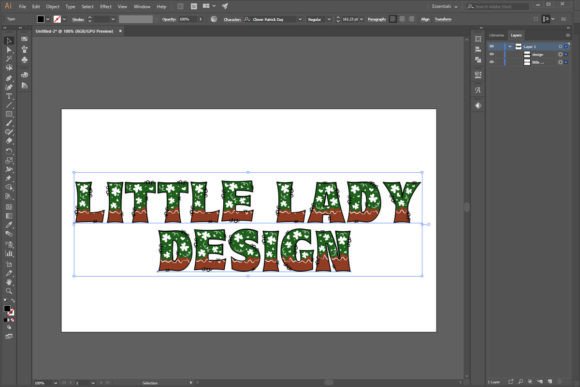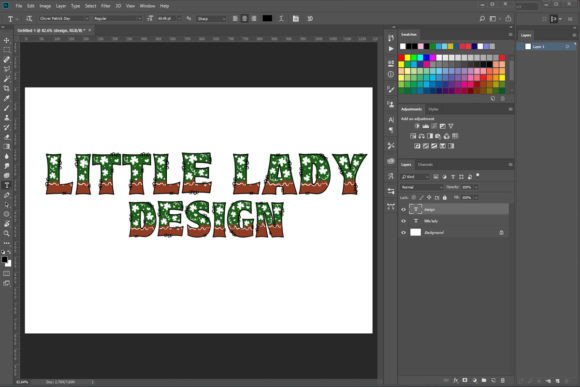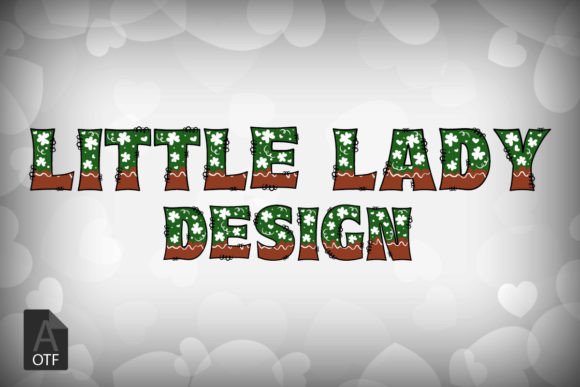
Clover Patrick Day Font: Elevate Your Designs with a Vibrant Retro Twist
In the world of digital design, fonts play a crucial role in conveying the tone and aesthetic of a project. For those looking to add a pop of color and a dash of nostalgia to their creations, the Clover Patrick Day Font is an excellent choice. This vibrant display font seamlessly blends a retro aesthetic with bold, bright colors, resulting in a lively and eye-catching design that’s perfect for a variety of projects.
What is Clover Patrick Day Font?
Clover Patrick Day Font is a unique and energetic display font that combines the charm of retro typography with the vibrancy of modern color schemes. Its bold and bright aesthetic makes it an ideal choice for designers and crafters looking to create eye-catching designs that stand out from the crowd.
Key Features of Clover Patrick Day Font
- Retro Aesthetic: The Clover Patrick Day Font boasts a distinctive retro style that’s reminiscent of classic posters and advertisements from the mid-20th century.
- Bold and Bright Colors: The font’s bold and bright color scheme adds a modern twist to its retro aesthetic, making it perfect for designs that require a pop of color.
- Easter-themed Designs: The font’s playful and vibrant aesthetic makes it an excellent choice for Easter-themed designs, such as greeting cards, party invitations, and social media graphics.
- Versatility: While the font is perfect for Easter-themed designs, its versatility means it can be used for a wide range of projects, from birthday party decorations to branding and advertising materials.
Project Ideas Using Clover Patrick Day Font
The Clover Patrick Day Font is an incredibly versatile design tool that can be used for a wide range of projects. Here are some ideas to get you started:
- Easter Greeting Cards: Create festive and fun Easter greeting cards using the Clover Patrick Day Font. Add some colorful graphics and illustrations to make your cards truly special.
- Party Invitations: Use the font to create eye-catching party invitations for Easter, birthday parties, or other celebrations. The font’s bold and bright aesthetic is sure to grab attention.
- Social Media Graphics: Add a pop of color to your social media graphics using the Clover Patrick Day Font. Create engaging and shareable content that’s perfect for Easter-themed posts or promotions.
- Branding and Advertising: Use the font to create bold and eye-catching branding and advertising materials, such as posters, flyers, and brochures.
- Crafting Projects: The Clover Patrick Day Font is also perfect for various crafting projects, such as scrapbooking, DIY decorations, and handmade cards.
Tips for Using Clover Patrick Day Font
To get the most out of the Clover Patrick Day Font, here are some tips to keep in mind:
- Experiment with Colors: The font’s bold and bright color scheme is one of its standout features. Experiment with different colors and combinations to find the perfect look for your project.
- Pair with Graphics: The Clover Patrick Day Font pairs perfectly with colorful graphics and illustrations. Use the font to create eye-catching headings and pair it with simple graphics for a bold and modern look.
- Keep it Simple: While the font is bold and eye-catching, it’s essential to keep your design simple and easy to read. Use the font sparingly and balance it with white space to create a clean and modern look.
| Author | Little Lady Design |
The Clover Patrick Day Font is a vibrant and energetic display font that’s perfect for designers and crafters looking to add a pop of color and a dash of nostalgia to their creations. Its retro aesthetic, bold and bright colors, and versatility make it an excellent choice for a wide range of projects, from Easter-themed designs to branding and advertising materials. With these tips and project ideas, you’re ready to elevate your designs with the Clover Patrick Day Font.